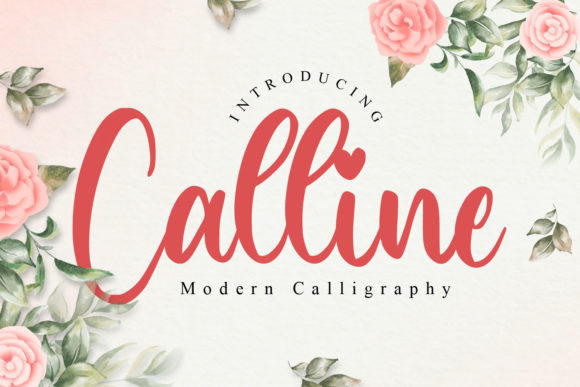
The Calline Font: A Beautiful Script for Creative Projects
I’ll never forget the moment I stumbled upon the Calline font. I was working on a DIY project for a client, and I was struggling to find the perfect font to match their brand’s modern and classy vibe. As a designer, I’ve worked with countless fonts, but there was something about Calline that caught my eye. Its beautiful, flowing script and elegant lines made it an instant favorite. In this article, I’ll share my experience with Calline, its features, and how to make the most of this stunning font.
A Personal Review of Calline
What I Love About Calline
- ✨ Modern and classy look: Calline’s sleek design makes it perfect for creating outstanding DIY projects that require a touch of sophistication.
- ✅ Elegant lines and flowing script: The font’s smooth lines and flowing script give it a beautiful, hand-written feel that’s hard to achieve with digital fonts.
- 💫 Versatile: Calline can be used for a wide range of projects, from branding and advertising to crafting and DIY tutorials.
While Calline is an amazing font, it’s not perfect. Here are a few things to keep in mind:
- 🤔 Limited kerning options: Calline’s kerning options are limited, which can make it tricky to use with certain words or phrases.
- ⚠️ Not suitable for body text: Due to its script nature, Calline is best used for headings, titles, or short paragraphs. It may not be the best choice for longer texts.
The Story Behind Calline
Calline was designed with the intention of creating a beautiful, modern script font that would inspire creatives to produce outstanding work. Its designer aimed to craft a font that would be both elegant and versatile, suitable for a wide range of projects. While the real story behind Calline might be unknown, its impact on the design community is undeniable.
Q: What is Calline font best used for?
A: Calline is best used for headings, titles, and short paragraphs in projects that require a modern and classy look, such as branding, advertising, and DIY tutorials.
Q: Can I use Calline in my craft projects?
A: Absolutely! Calline is perfect for craft projects, such as card making, scrapbooking, and journaling. Its elegant lines and flowing script add a touch of sophistication to any project.